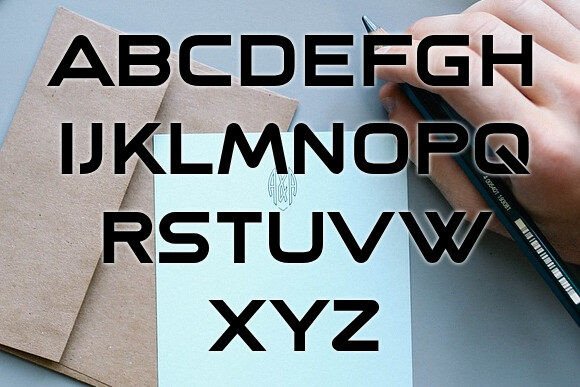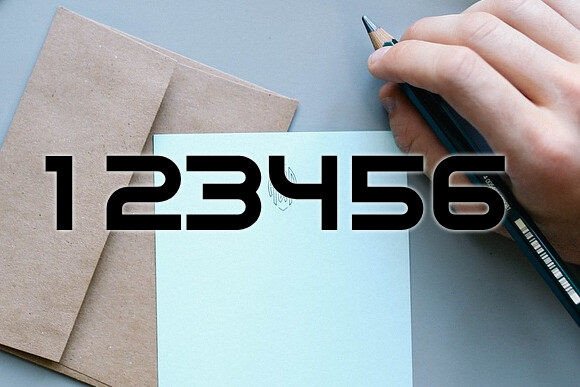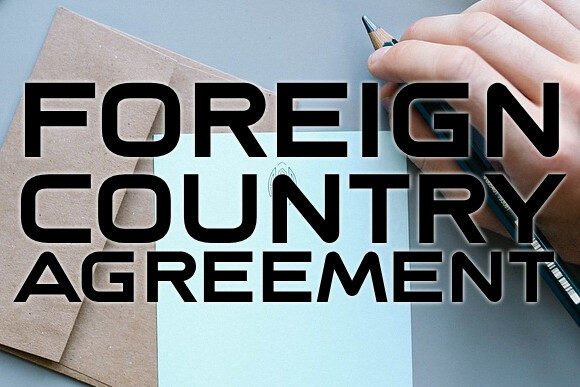
Introduction to Consul Font
Consul is stylish sans serif font that will look awesome on your best projects.
Use this font on posters, flyers and t-shirts .
Key Features of Consul Font
Why Choose Consul Font?
Consul Font offers exceptional quality and versatility, making it a valuable addition to your design toolkit. Whether you’re creating for personal projects or commercial use, Consul Font delivers professional results.